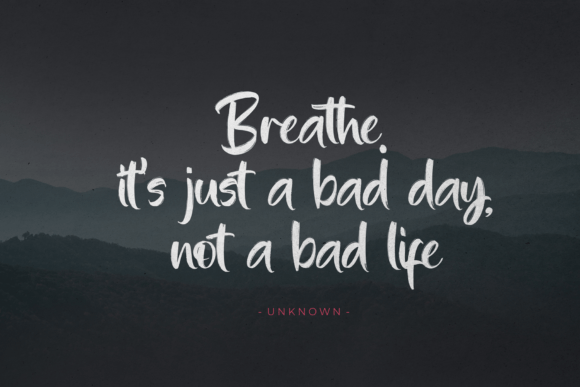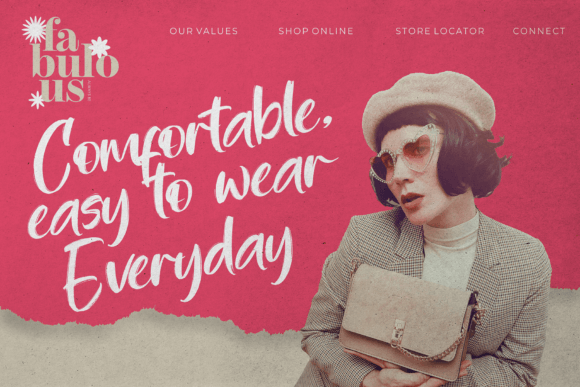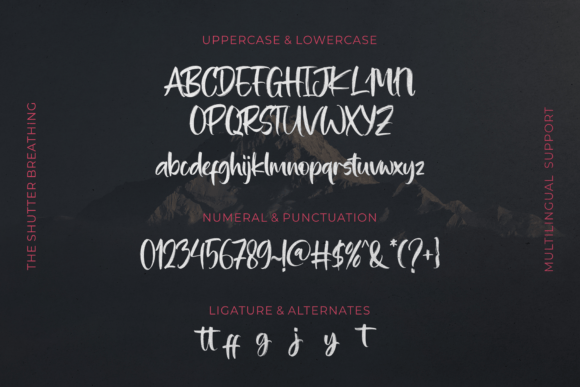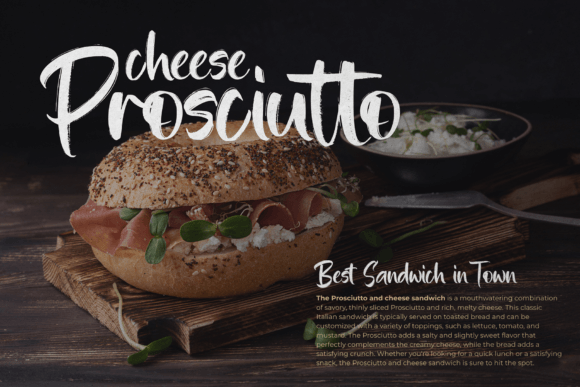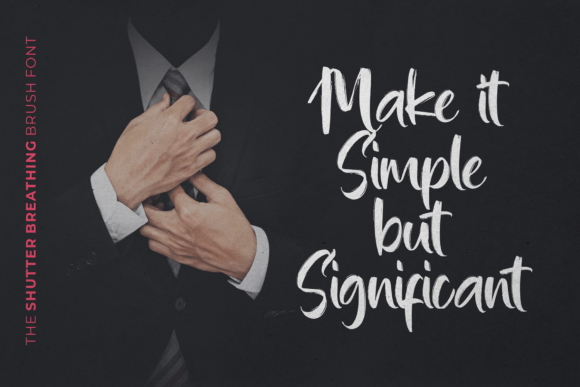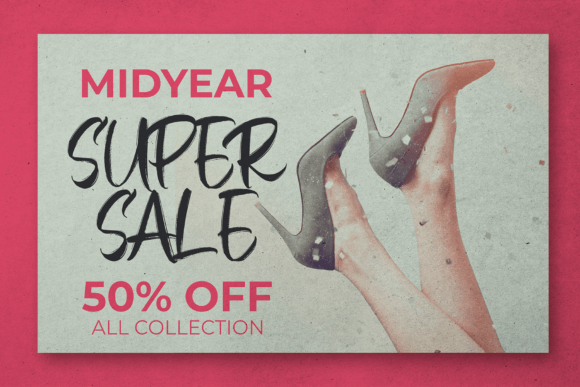
Introduction to Shutter Breathing Font
Have you ever stared at a blank canvas, feeling like your creative project is missing that special something? The blank page stares back at you, taunting you with its emptiness. But what if you could infuse your design with a breath of fresh air? That’s exactly what our new font, Shutter Breathing Font, is designed to do.
As a designer, you know the importance of having the right tools at your disposal. A high-quality design resource like the Shutter Breathing Font can be a game-changer. With its natural and authentic look, this stunning organic brush font is perfect for adding a touch of originality to your creative project. Whether you’re working on branding and marketing materials or social media posts, this versatile font is sure to impress.
So why settle for a generic font when you can give your designs a transparent background and a unique personality with the Shutter Breathing Font? This free download is a must-have for any designer looking to elevate their work and take their creativity to the next level.
Key Features of Shutter Breathing Font
- Unique and creative font design ideal for various creative projects and designs.
- High-quality font with a transparent background, allowing for easy integration into various design elements.
- Designed with a high resolution of 300 DPI, ensuring crisp and clear text display.
- The font size is scalable, making it suitable for various design applications, from small titles to large body text.
- Perfect for designers looking for a unique and creative element to enhance their designs and projects.
Honest Review: Shutter Breathing Font
I recently had the chance to work with the Shutter Breathing Font in one of my creative projects, and I must say it was a delightful experience. This font is a high-quality design resource that offers a unique and creative touch to any project.
Here are some things that I found worked well with the Shutter Breathing Font:
- ✨ The font’s transparent background made it easy to layer over other design elements.
- ✨ The high-quality design ensured that the font looked great at various resolutions.
- ⚠️ The font may not be suitable for all types of projects, particularly those that require a more formal tone.
- ⚠️ Some users may find the font’s unique design style to be too quirky or unconventional.
Overall, I was impressed with the Shutter Breathing Font’s performance in my creative project. Its unique design and high-quality execution make it a great addition to any designer’s toolkit.
Shutter Breathing Font
The Shutter Breathing Font is a unique and creative design resource that can add a professional touch to your projects. With its high-quality and transparent background, this font is perfect for designers and artists looking to elevate their work.
To get the most out of the Shutter Breathing Font, experiment with different font sizes, colors, and combinations. You can also use it in conjunction with other design elements to create a unique look.
The Shutter Breathing Font is versatile and can be used in a variety of creative projects, including:
Graphic design
Logo design
Print design
Web design
With its high-quality design and transparent background, the Shutter Breathing Font is a valuable addition to any designer’s toolkit.